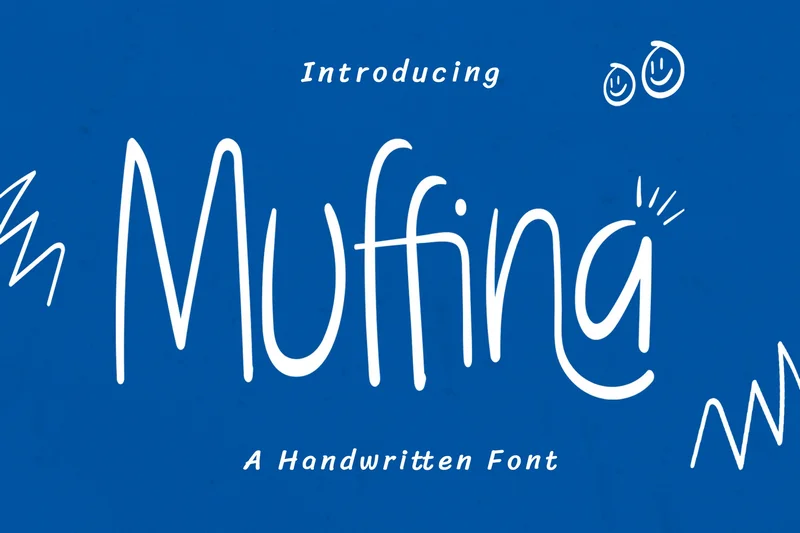
Muffina – Handwritten Font
Muffina is a cheerful handwritten font that captures the innocence of playful doodles and heartfelt notes. With its tall, smooth strokes and friendly curves, Muffina adds an authentic human touch to your designs—perfectly balancing casual charm and legibility. Whether you’re designing for romantic quotes, kids branding, lifestyle packaging, or uplifting messages, Muffina brings a sweet and optimistic feel to your visual storytelling.